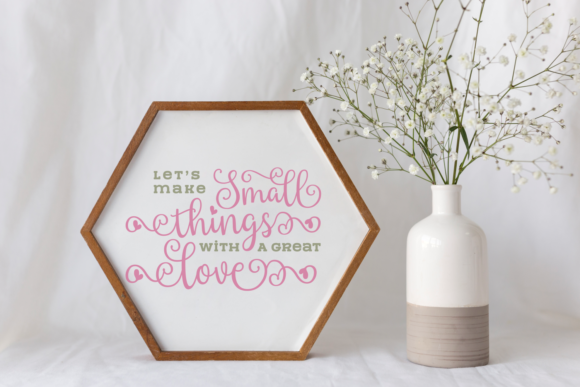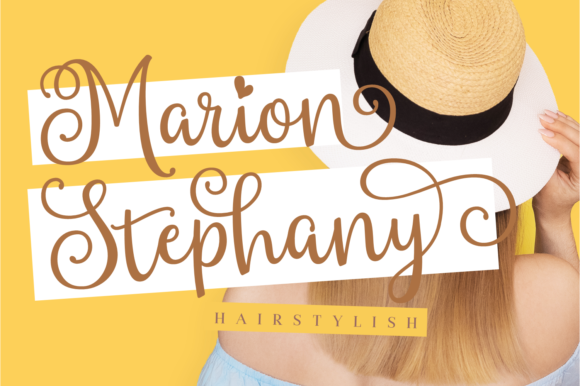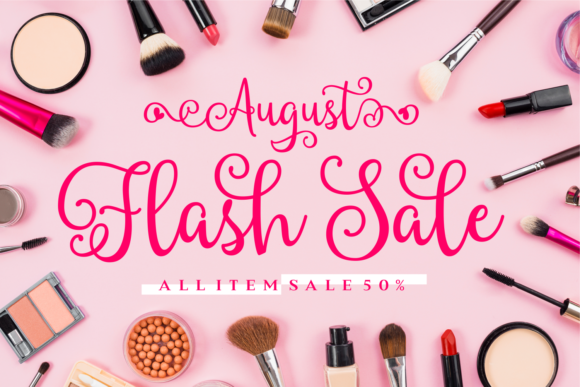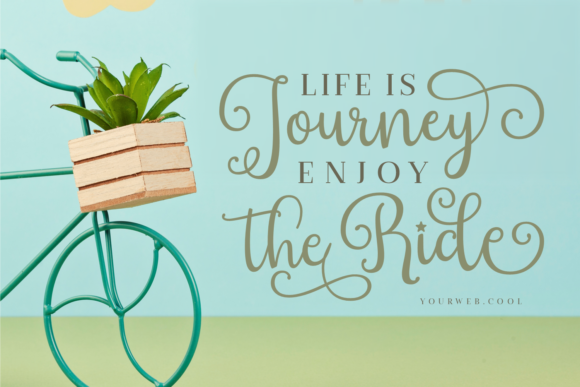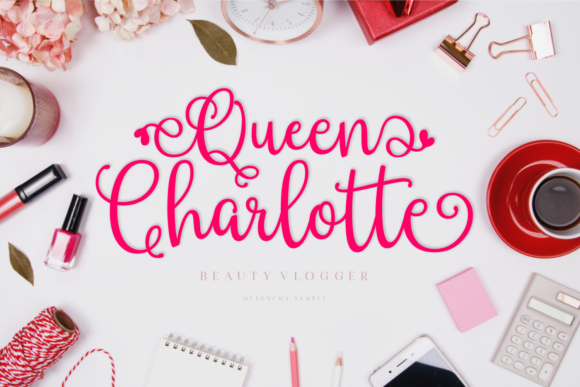
Wixtar Font
About Wixtar Font
Wixtar is an incredibly beautiful and stunning handwritten font with beautiful swashes. It will add a whimsical twist to any crafting project!